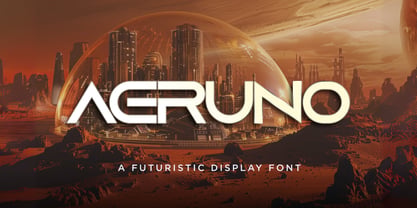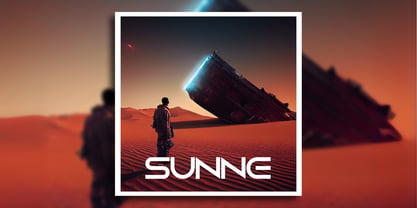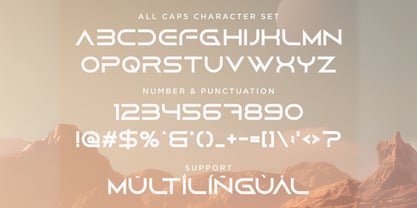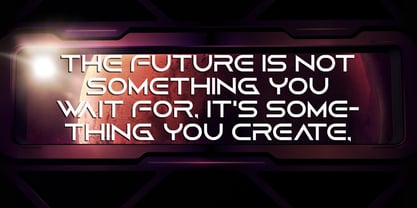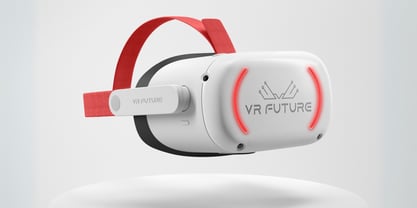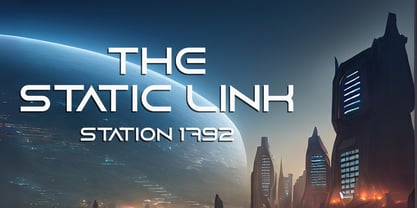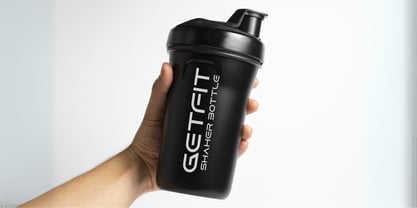
Aeruno
Aeruno is a modern futuristic sans font with a bold feel. It will add a contemporary update to any design project. Add it to your most creative ideas and notice how it makes them come alive!